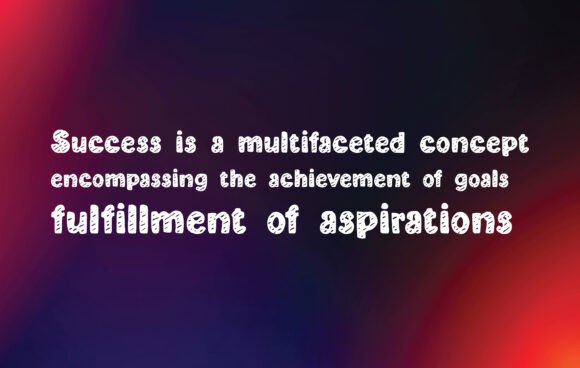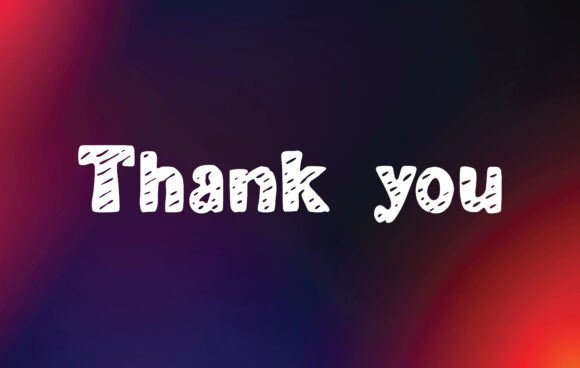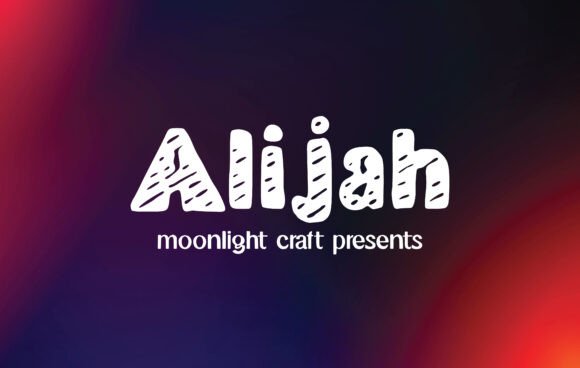
Alijah Font: Elevate Your Creative Projects with this Lovely Handwritten Font
Are you a designer, craftsperson, or creative looking for a font that can take your projects to the next level? Look no further than Alijah Font, a beautiful and lovely handwritten font that is sure to impress. With its unique and elegant style, Alijah Font has the potential to elevate your creative ideas and make them shine.
The Perfect Choice for Creative Projects
Alijah Font is the best choice for creating eye-catching logos, branding, and quotes. Its handwritten style gives it a personal and organic feel that is perfect for projects that require a touch of warmth and personality. Whether you’re working on a logo, brochure, or social media graphics, Alijah Font is sure to make your project stand out.
Key Features of Alijah Font
- Unique and Elegant Style: Alijah Font has a distinctive and stylish look that sets it apart from other fonts.
- Handwritten Style: The font’s handwritten style gives it a personal and organic feel that is perfect for creative projects.
- Versatile: Alijah Font can be used for a wide range of projects, from logos and branding to quotes and social media graphics.
- Easily Readable: Despite its elegant style, Alijah Font is easily readable, making it perfect for projects that require both style and substance.
Benefits of Using Alijah Font
Using Alijah Font in your creative projects can have a number of benefits, including:
- Increased Visual Appeal: Alijah Font’s unique and elegant style is sure to grab attention and make your project stand out.
- Improved Brand Identity: Alijah Font can help you create a consistent and recognizable brand identity that reflects your values and personality.
- Enhanced Creativity: With Alijah Font, you can add a touch of elegance and sophistication to your project, allowing you to express your creativity and bring your ideas to life.
How to Use Alijah Font
- Experiment with Different Sizes and Colors: Alijah Font looks great in a variety of sizes and colors, so don’t be afraid to experiment and find the combination that works best for your project.
- Pair it with Other Fonts: Alijah Font pairs well with other fonts, so try combining it with a bold or sans-serif font to create visual interest.
- Use it for Headlines and Titles: Alijah Font is perfect for headlines and titles, where its elegant style can really shine.
In conclusion, Alijah Font is a beautiful and lovely handwritten font that is perfect for designers, craftspersons, and creatives looking to elevate their projects. With its unique and elegant style, Alijah Font has the potential to take your creative ideas to the highest level. Whether you’re working on a logo, branding, or quotes, Alijah Font is the best choice for creating eye-catching and effective designs.